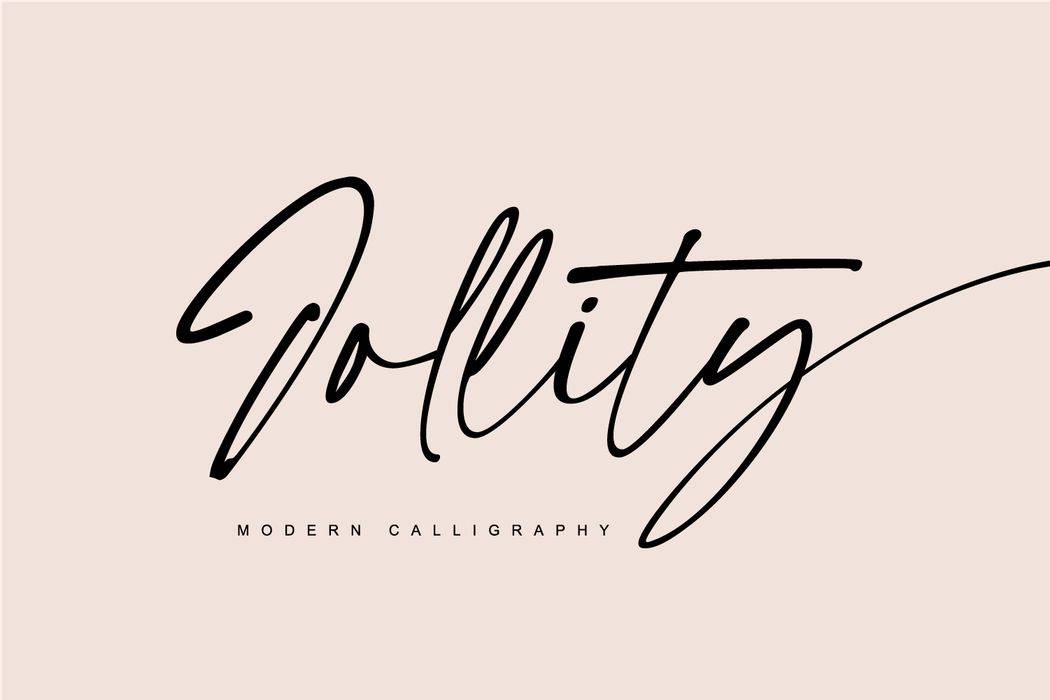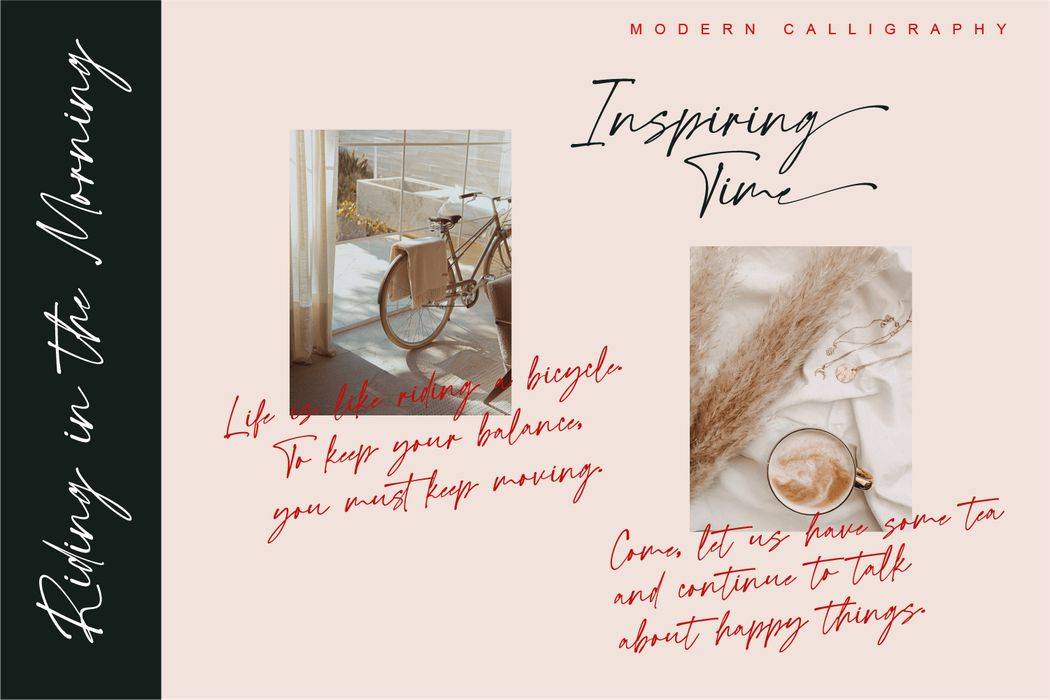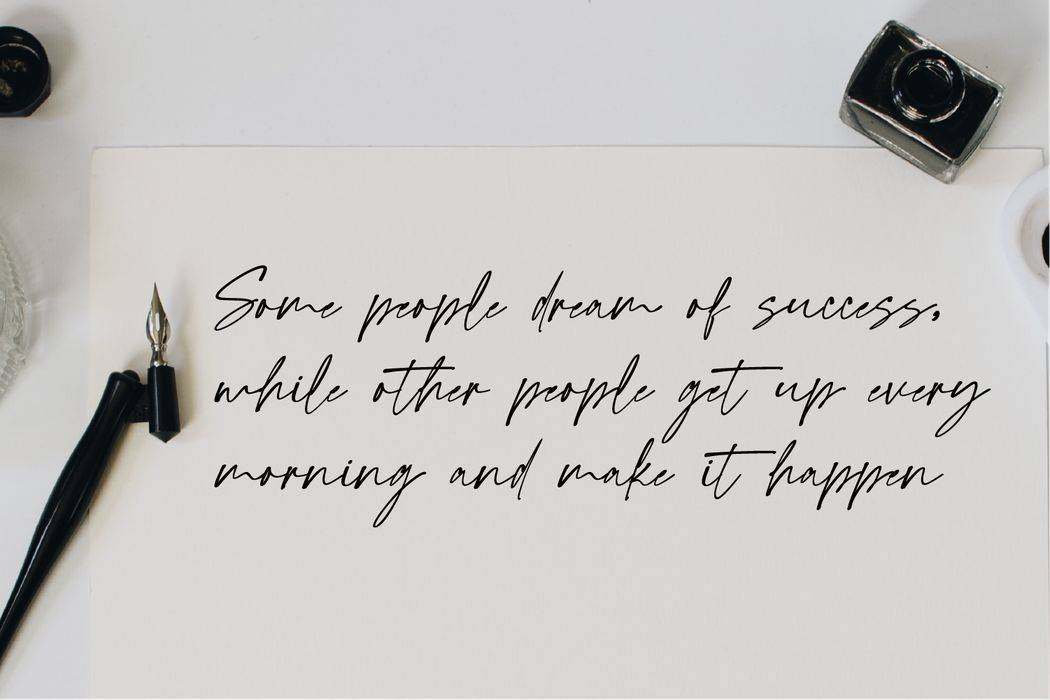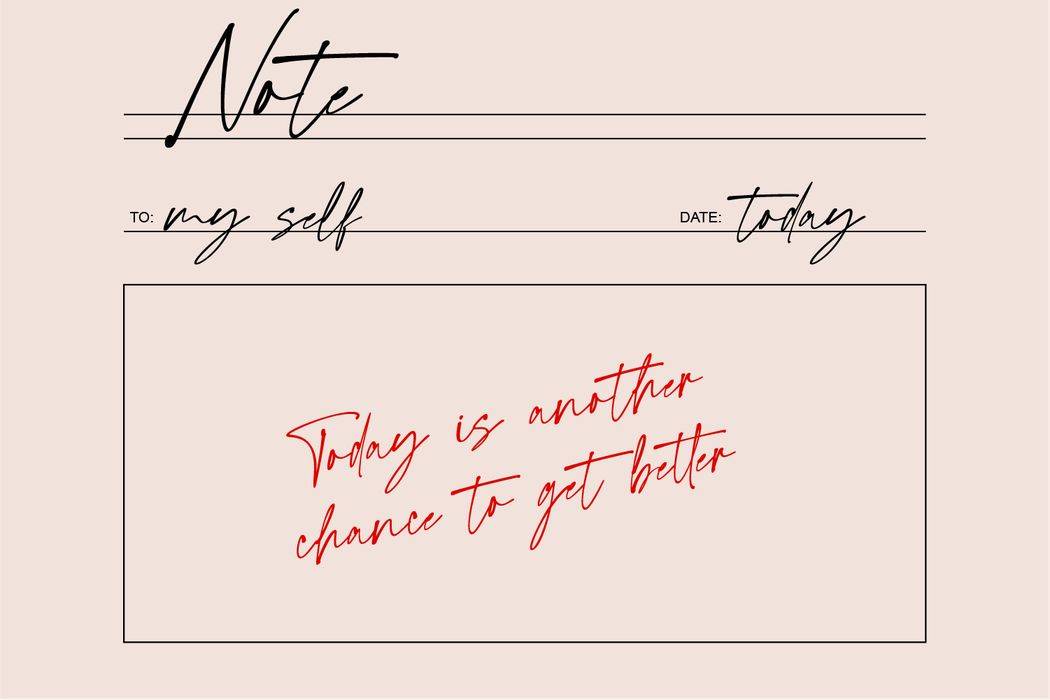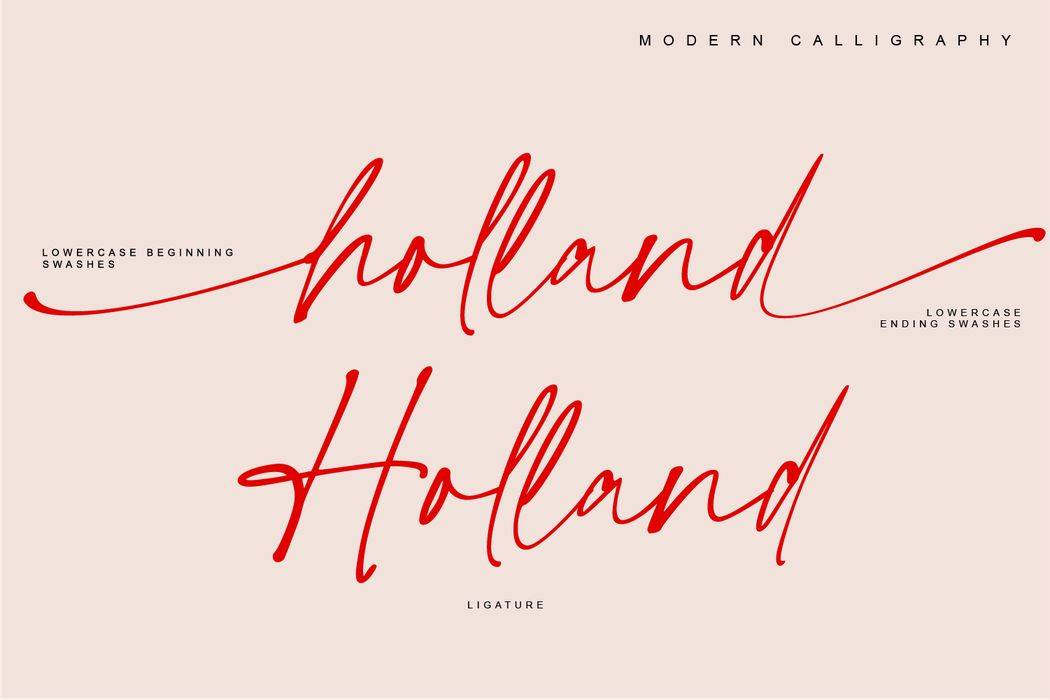
Jollity is a delicate, handwritten script font with a casual and elegant feel, characterized by its thin, flowing strokes and dynamic letterforms. Its tall, slender shapes and expressive curves make it perfect for adding a personal, artistic touch to invitations, branding, and lifestyle designs where a refined yet approachable style is desired. This font works best in headlines or short text where its unique charm can truly stand out.
Jollity Font
About Jollity Font
| Font family | Jollity Font |
| Release date | 2021-11-05 |
| Designer | Farida Kurniawan |